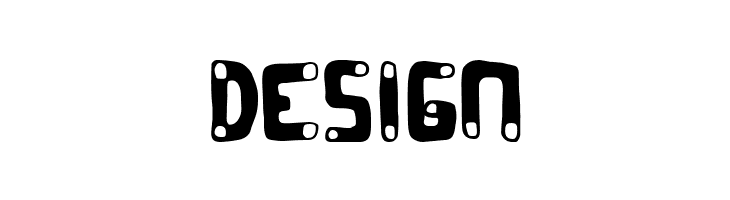
Gamlangdee Font
- Font: Gamlangdee
- No. of Characters:: 212
A bold, playful font with rounded edges and circular cutouts, ideal for creative projects.